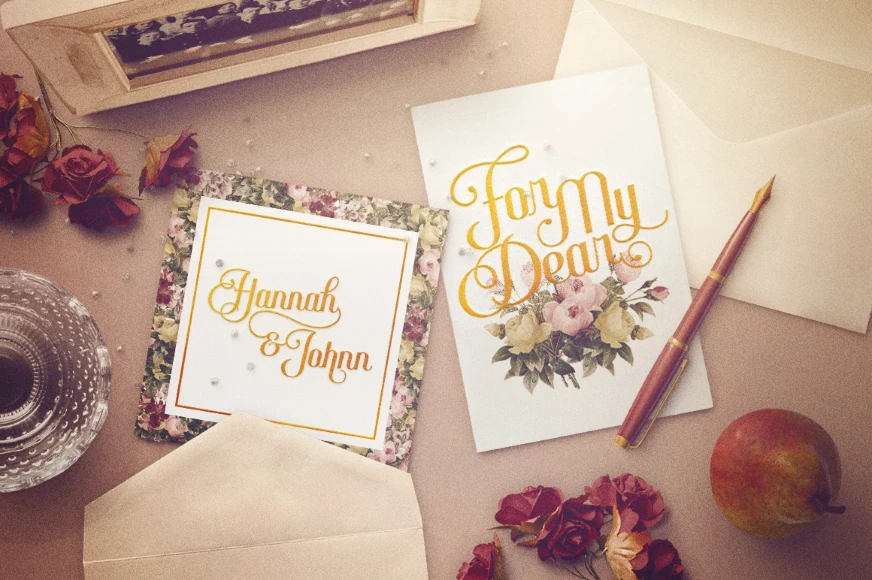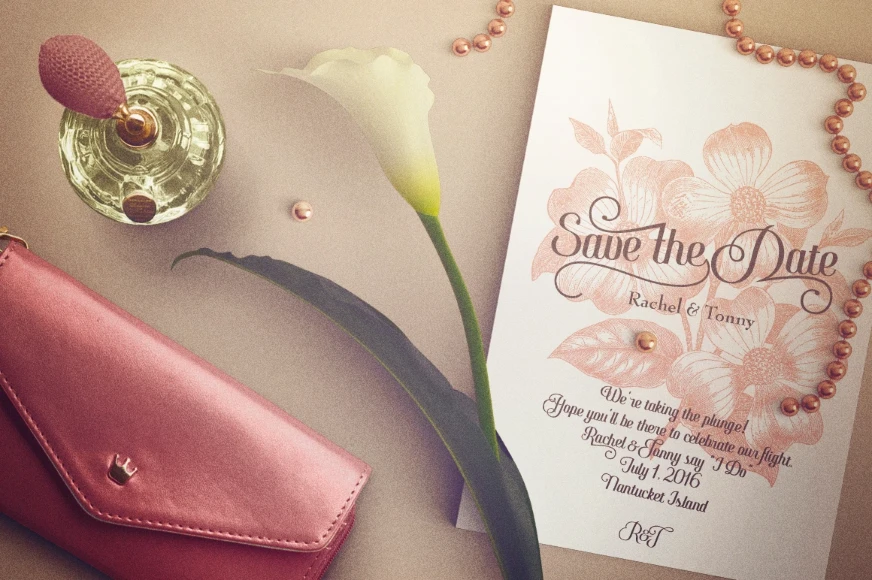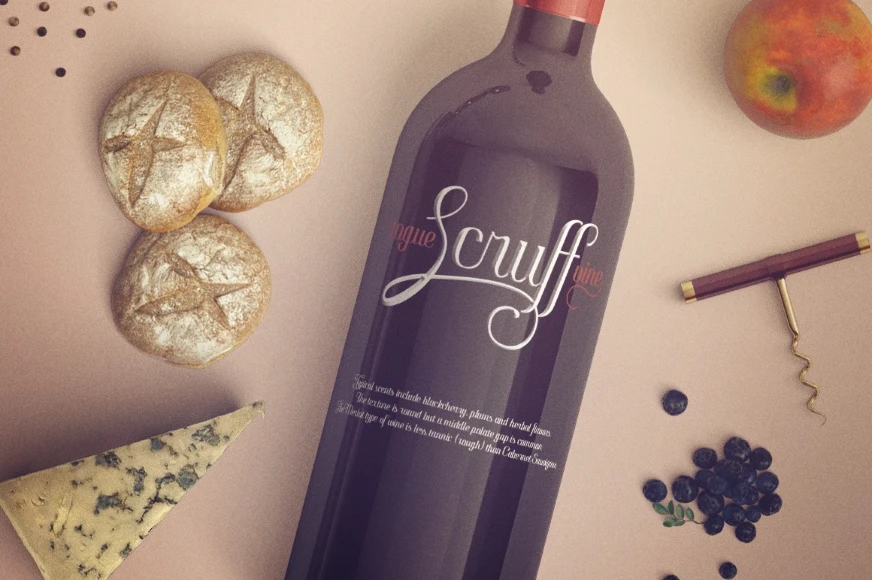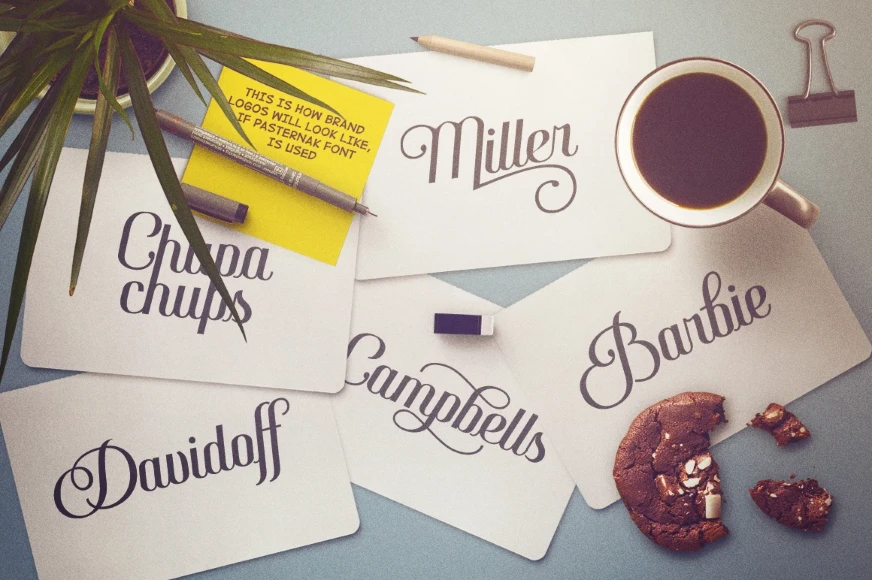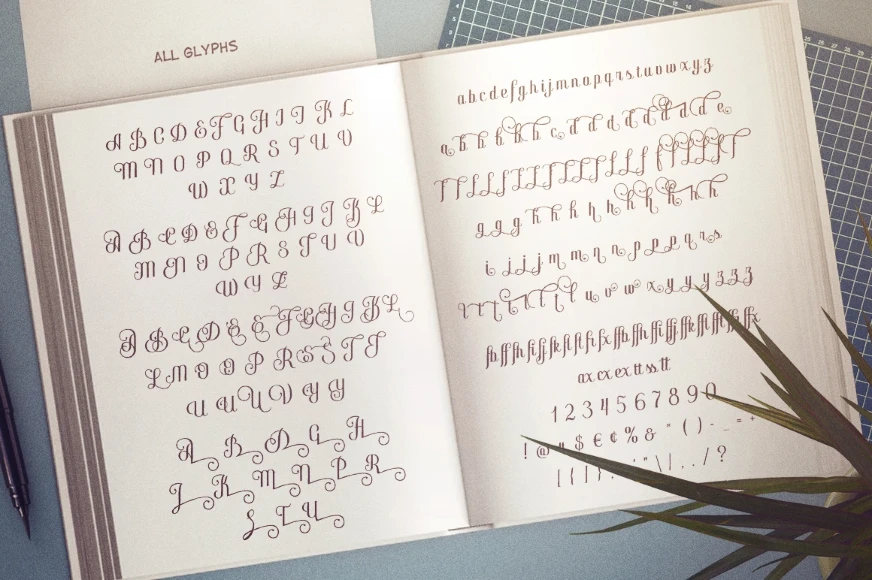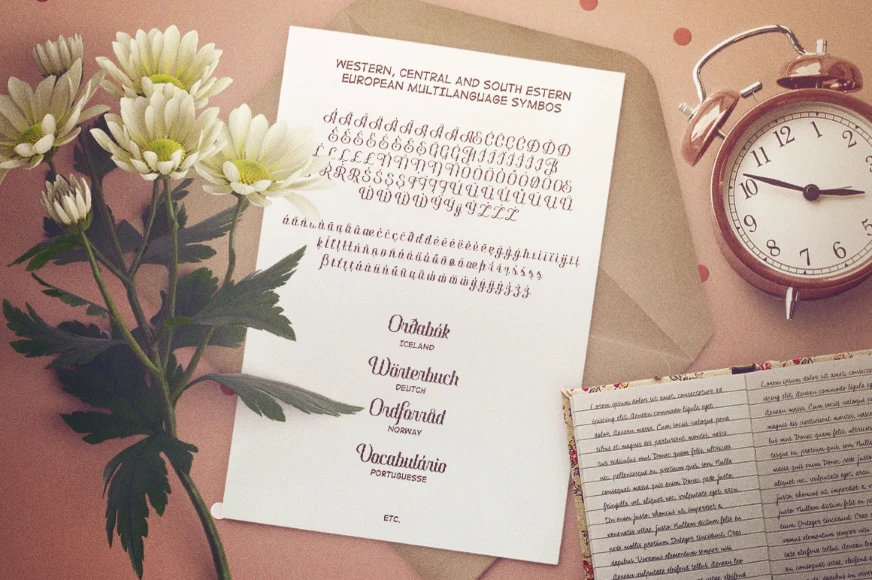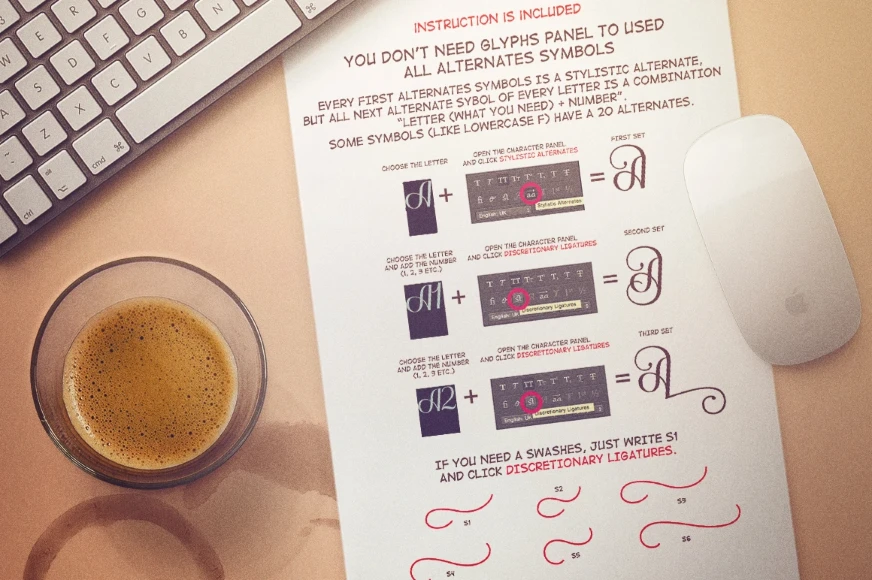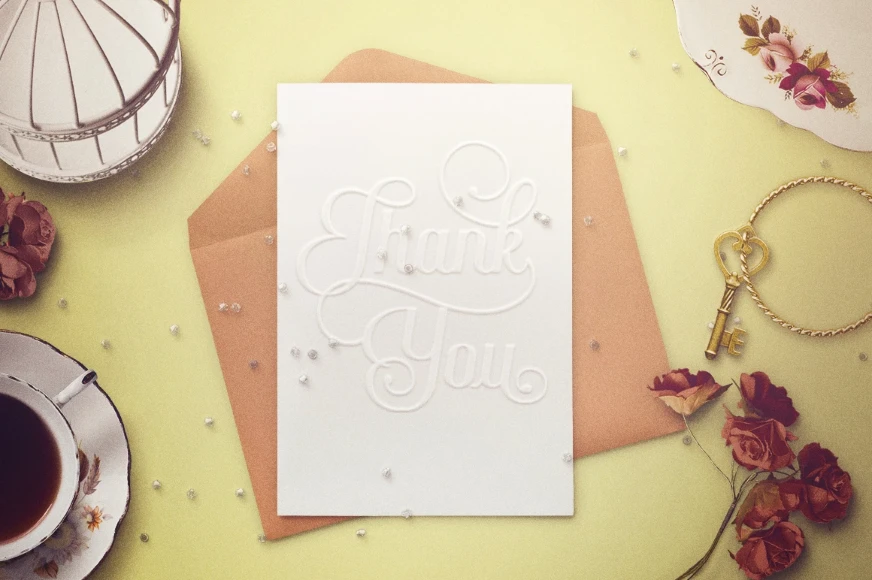
Pasternak
Pasternak Regular
Pasternak Regular Italic
Pasternak is a vintage romantic script font designed with elegance and charm. Perfect for logos, wedding invitations, prints, and decorative elements. Features flowing letterforms that add warmth and sophistication to any design. Ideal for projects that need a classic, heartfelt touch.